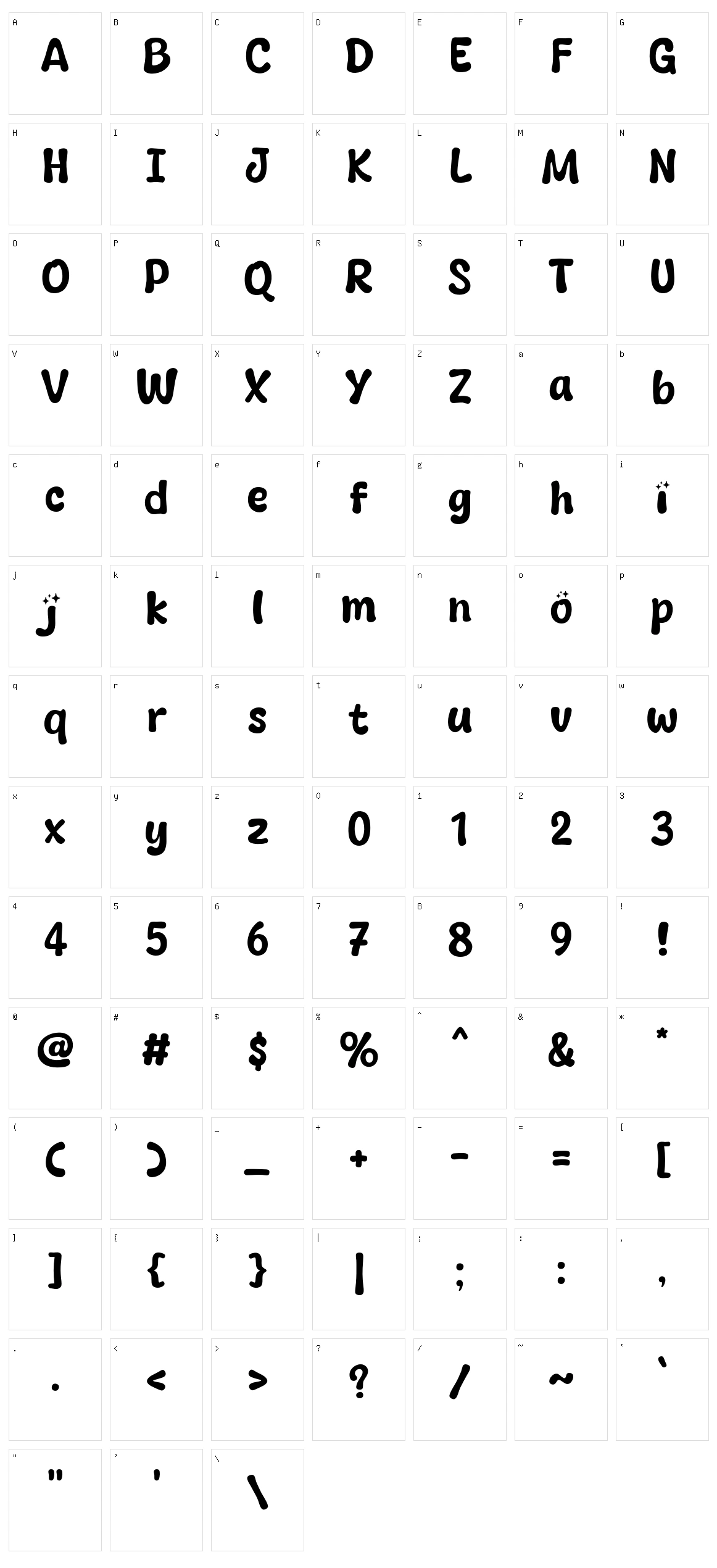
The free font Welcome Magic is carefully designed by Khurasan, showcasing a thoughtful balance of creativity and usability and falls under the Cartoon font style. When you download the ZIP file, it contains only 389.13 KB of font files, making it lightweight and quick to download. Please review the license details below to understand permitted usage and distribution rights. If license information is not available, we recommend using this font for personal projects only or contacting the author directly for commercial usage permissions.